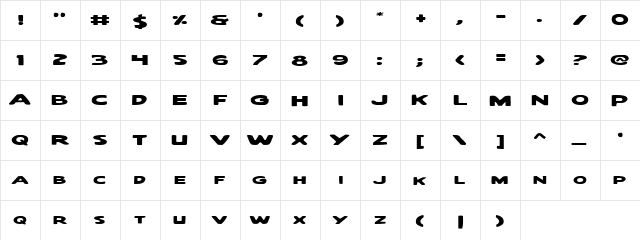
Quartermain Expanded Expanded
Design Context for Quartermain Expanded Typeface
Quartermain Expanded takes a measured approach to typography — its balanced proportions and neutral character make it a reliable workhorse for both digital and print work.
Pro Tip: Use Quartermain Expanded in both headline and body roles to test its range before committing to a single application.